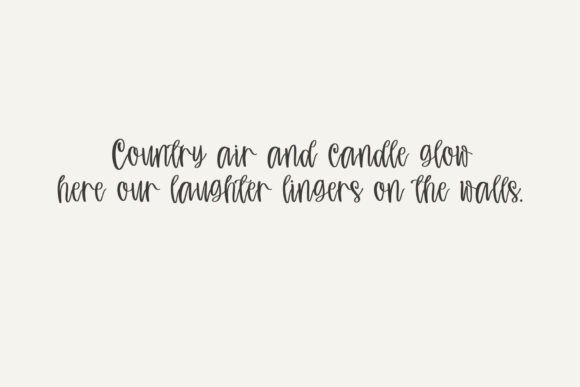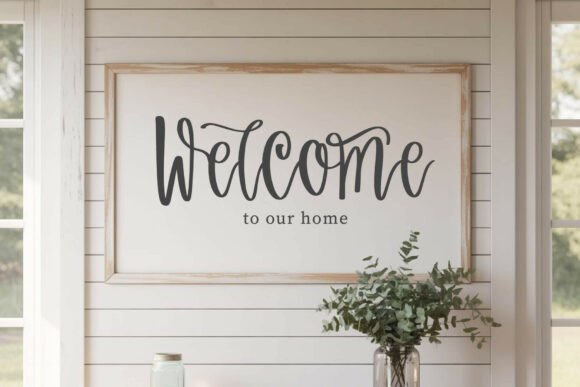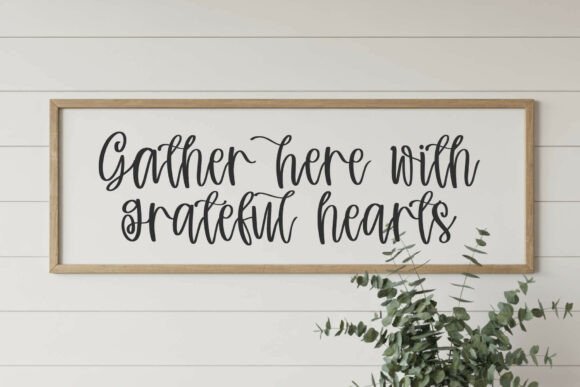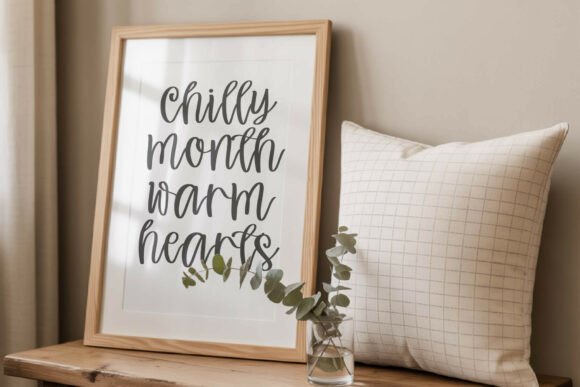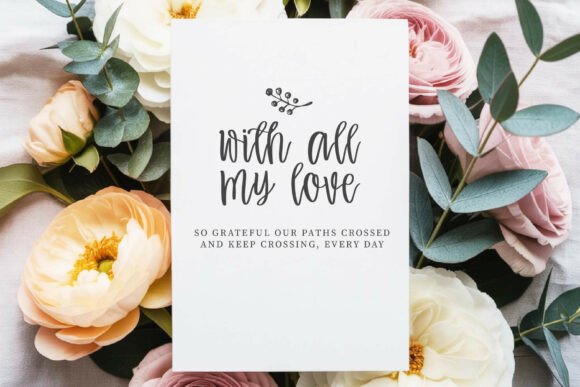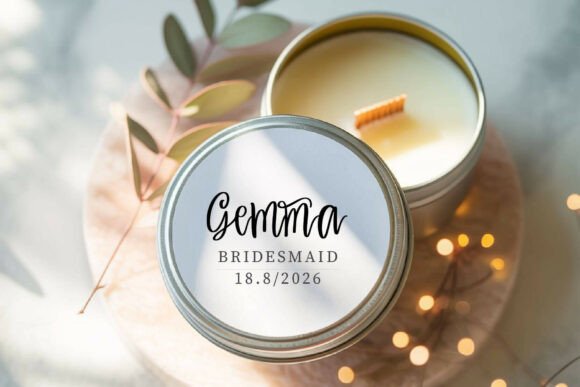
Discover the Charming Appeal of Chilly Month Font
In the world of typography, few fonts manage to capture the essence of handcrafted charm and modern elegance as beautifully as the Chilly Month font. This delightful modern calligraphy typeface is designed to bring an authentic, personalized touch to any project, making it a favorite among designers, crafters, and small business owners alike.
A Playful, Handcrafted Appeal
The Chilly Month font boasts a playful, bouncy baseline and flowing connections that give it the genuine look of beautiful, casual handwriting. Its clean, crisp outlines make it highly readable, while its charming personality adds a touch of warmth and friendliness to any text. This unique combination of style and approachability makes the Chilly Month font an ideal choice for creators seeking a warm and friendly aesthetic that still maintains a high level of sophistication.
Ideal for Craft-Based Endeavors
Whether you’re into vinyl cutting, scrapbooking, sticker production, or any other craft-based endeavor, the Chilly Month font is perfectly suited for your needs. Its handcrafted appeal and modern elegance make it a versatile typeface that can be used in a wide range of creative projects. From social media quotes and personalized gifts to small business branding and product packaging, this font effortlessly transforms simple text into an engaging, expressive piece of art.
Perfect for Design and Crafting Projects
The Chilly Month font is a dream to work with, whether you’re designing beautiful greeting cards, creating eye-catching product packaging, or setting romantic wedding stationery. Its lighthearted elegance and charming personality add a touch of whimsy to any project, making it perfect for:
- Vinyl cutting projects, such as custom signs, decals, and iron-on designs
- Scrapbooking and paper crafting, where a personal touch makes all the difference
- Sticker production, from custom laptop stickers to product labels
- Social media quotes and graphics, where a friendly aesthetic can help engage your audience
- Personalized gifts, such as customized mugs, tote bags, and phone cases
- Small business branding, where a unique and memorable typeface can help you stand out
Key Features of Chilly Month Font
The Chilly Month font comes with a range of features that make it a joy to use. These include:
- A modern calligraphy style with a playful, bouncy baseline
- Flowing connections that give it a genuine, handcrafted look
- Clean, crisp outlines for high readability
- A charming personality that adds a touch of warmth and friendliness to any text
- Support for a wide range of languages and characters
Why Choose Chilly Month Font?
With so many fonts to choose from, why should you choose Chilly Month font for your next project? Here are just a few reasons:
- Unique and memorable: The Chilly Month font is a one-of-a-kind typeface that will help your project stand out from the crowd.
- Versatile: This font can be used in a wide range of creative projects, from craft-based endeavors to digital designs.
- Elegant and whimsical: The Chilly Month font adds a touch of lighthearted elegance to any text, making it perfect for projects where you want to convey a sense of warmth and friendliness.
- Easy to read: With its clean, crisp outlines, the Chilly Month font is highly readable, even at small sizes.
Get Creative with Chilly Month Font
If you’re looking for a font that will add a touch of handcrafted charm and modern elegance to your next project, look no further than the Chilly Month font. With its playful, bouncy baseline and flowing connections, this delightful typeface is sure to bring a smile to your face and a touch of whimsy to your designs. So why wait? Download the Chilly Month font today and get creative!